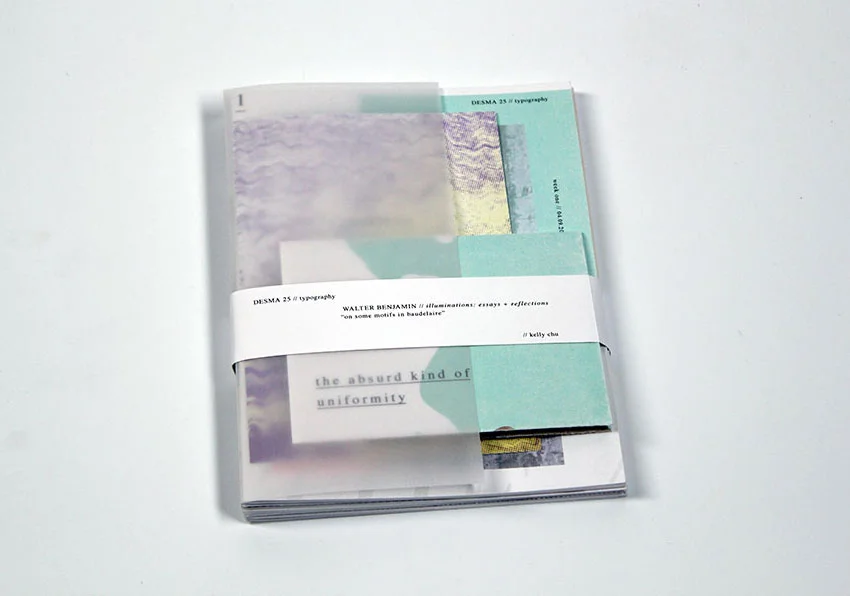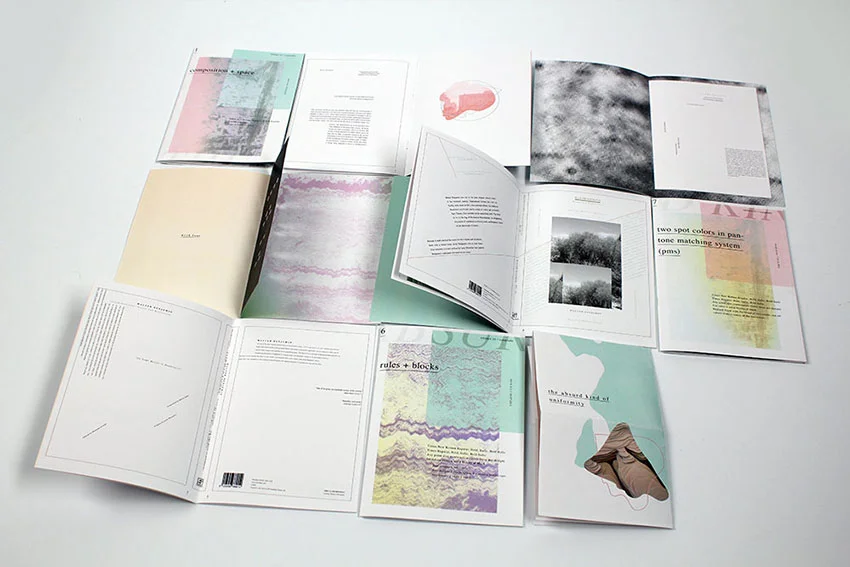
Kelly Chu, a sophomore at UCLA majoring in Design/Media Arts, was introduced to illustration at age 8 when she began art classes at YMCA San Francisco and began to experiment with design as she got older. During her first year at UCLA, she designed The Absurd Kind of Uniformity in Carolina Trigo's typography class, which includes eight booklets representing an eight week design process of book covers for Walter Benjamin's Illuminations: Essays and Reflections and On Some Motifs in Baudelaire, a poster documenting a typographic paper sculpture, and a small intro/artist statement card. She fell in love with typography and its culture and is interested in creating printed media and books about various subjects.
What guidelines were you given for this project?
Each week I was given the assignment to design ten very different covers with parameters that gradually gave me more freedom. The parameters accumulated over eight weeks. The first week had the most basic parameters: use Times New Roman Regular or Times Regular, 9 point size only, type in black on white. Additionally, I played with leading, letter spacing, and upper or lower case. The second week had similar parameters except I could use any single point size per design. Parameters for the following weeks allowed me to include bold font, italic font, point size combinations (limit three per design), rules and solid blocks of black, white text on black, and finally color and photographic images.
I felt that this design process, starting with the bare minimum and gradually increasing in complexity, really helped winnow out and improve on the best designs.
I would design book covers that respond to the critique I received from the previous week. I thought about what worked and what didn't, which covers could improve/which covers I could build off of and which ones needed a different approach. Each week I would read over the assigned short passage of Benjamin's Illuminations, and design covers in response to the text. A lot of times I would design around twenty covers and eventually bring it down to the ten that I found most reflective of the text.
I found Benjamin's writing very bold but also very poetic. It gave me a feeling of "erosion" but also a kind of harmony between the machine and the human hand. I chose colors and manipulated textures to mirror those feelings.
What was your process? Did you plan beforehand?
There was minimal planning during the eight weeks as it was more about experimenting with type and composition in designing book covers.
Which typefaces did you use?
Times New Roman. This was part of the guidelines. I used Regular, Bold, Italic, and Bold Italic.
What's the meaning behind the color choices?
The color palette was chosen to represent my personal aesthetics.
I spent a lot of time color correcting. I had a lot of pastels and grays so I wanted to make sure the colors didn't look to dull or overly washed out. I really had to work with the printer I was using to make sure the colors came out the way I wanted them to. There were some challenges with the fold outs as well. I went thru a few mock ups until I had the perfect fold and cut marks. I trimmed the booklets after I bound them so I didn't want any folds to get cut off.